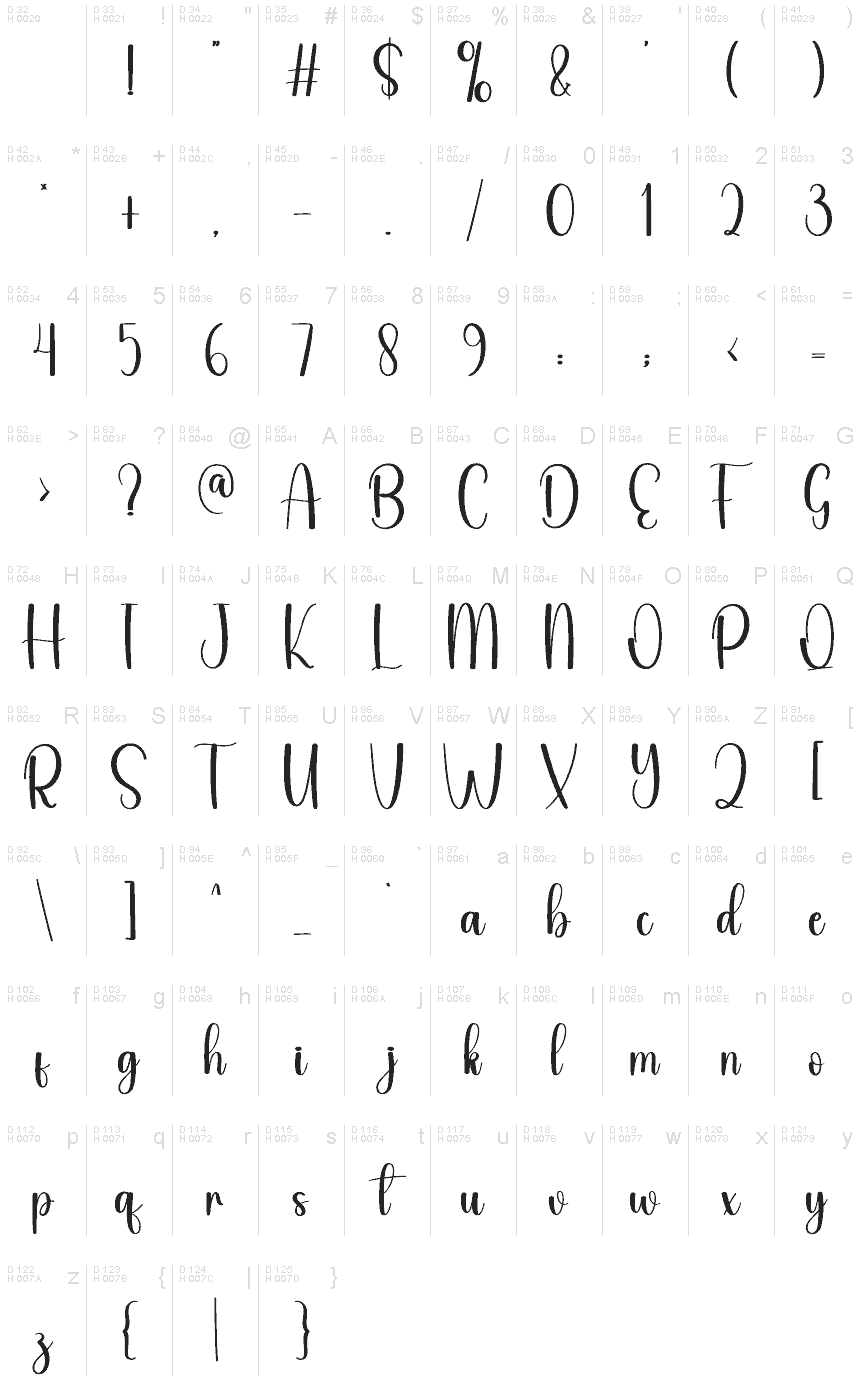
Cyan
Cyan font designed by Andi Moz is an elegant and modern handwritten typeface. Its condensed letters create a flowing unified design that appears expressive and inviting. Such qualities are often hard to find in free handwritten fonts which makes this one quite precious.